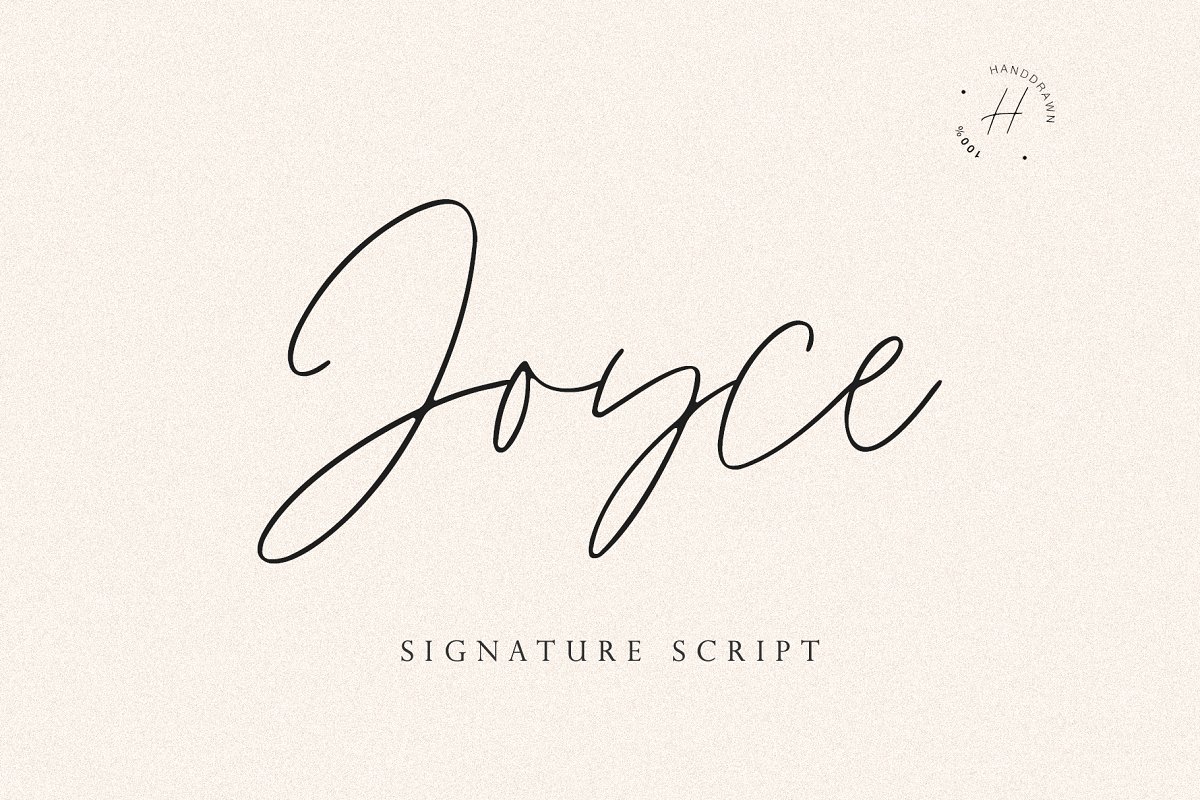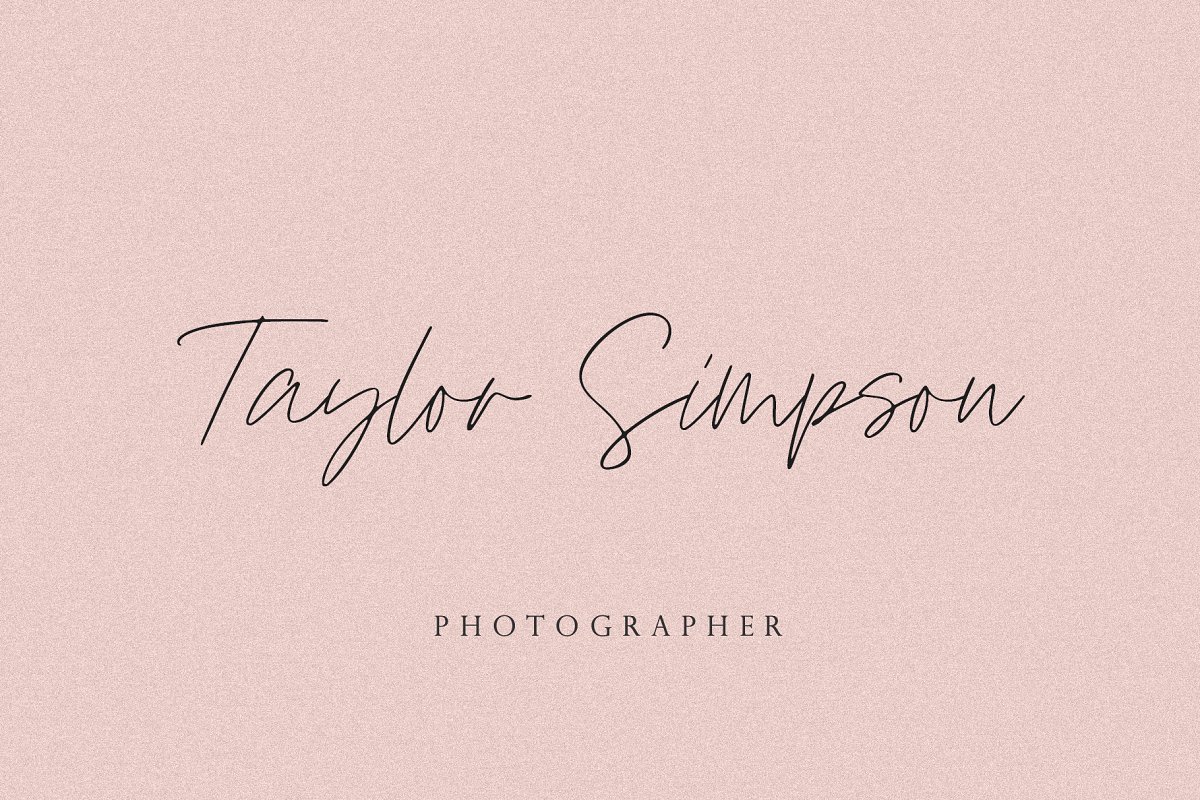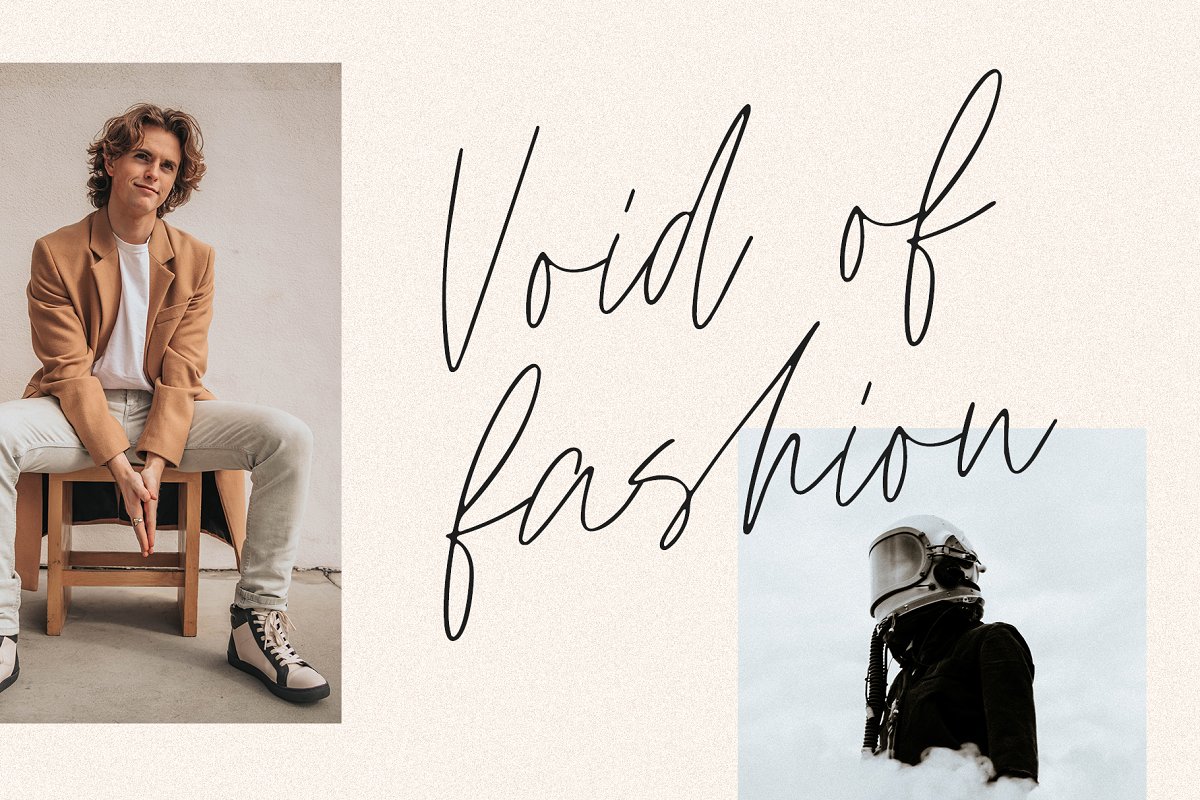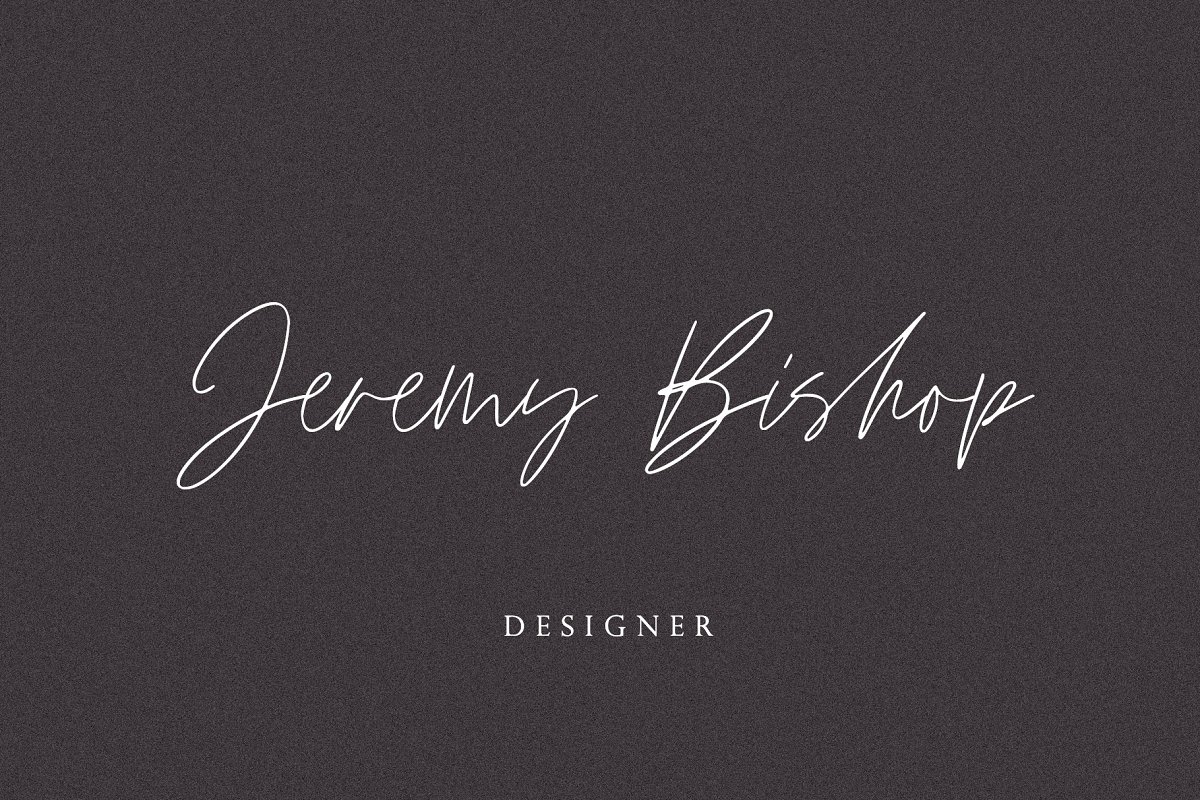
About the JOYCE SCRIPT Font
INTRO SALE -50% / NORMAL PRICE 20$Hello, friends, I keep experimenting with handwritten fonts, shapes and lines, I want the font to set the tone, the atmosphere, and look like an inscription made in a hurry, but it is well read, Try my new font, I think it combines all these qualities, Simple and clear, looks at ease, It is perfect for signatures or design, where you do not need a strict style :)Test it out below to see how it could look for your next project!Includes:Uppercase and lowercaseNumbers and punctuationForeign language supportLigaturesDON’T MISS MY NEW BUNDLE – https://crmrkt